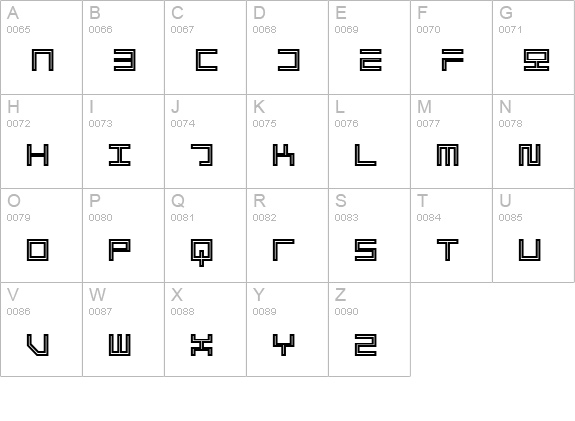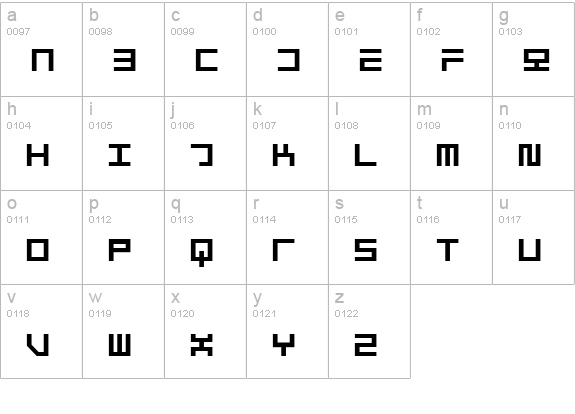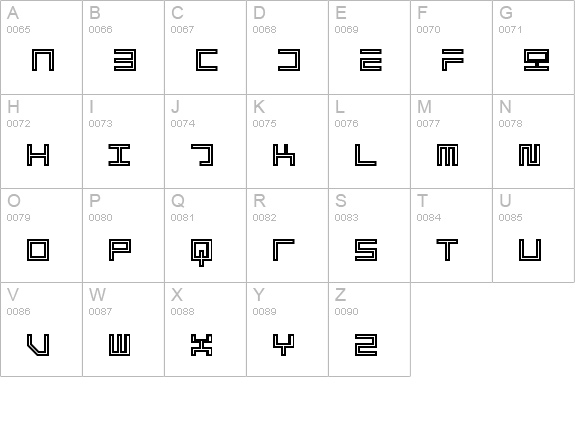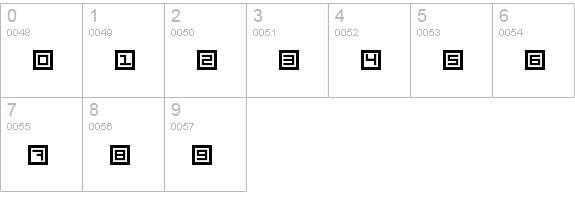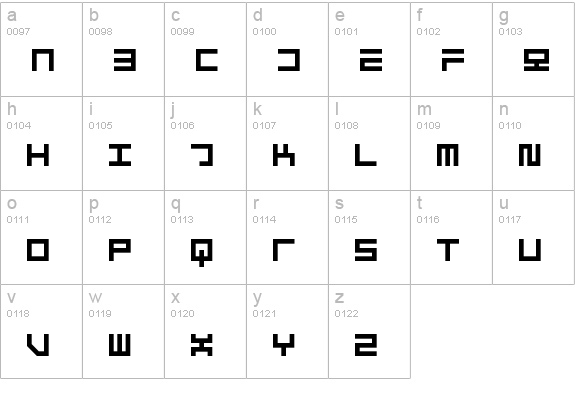
Oggi Font Details
Oggi font is a modern and stylish typeface that exudes sophistication and elegance. With its clean lines and contemporary design, Oggi is perfect for a wide range of projects, from branding to editorial design. This versatile font family includes a variety of weights and styles, making it easy to create eye-catching layouts and designs. What makes Oggi font even more appealing is that it is available for free download at FontsMarket.com. This means that you can easily access this high-quality font without any cost, making it a valuable addition to your font collection. Whether you're a designer looking for a sleek and professional typeface or someone in need of a stylish font for personal use, Oggi font is sure to impress with its modern aesthetic and timeless appeal. Download Oggi font today and elevate your designs with this beautiful typeface.